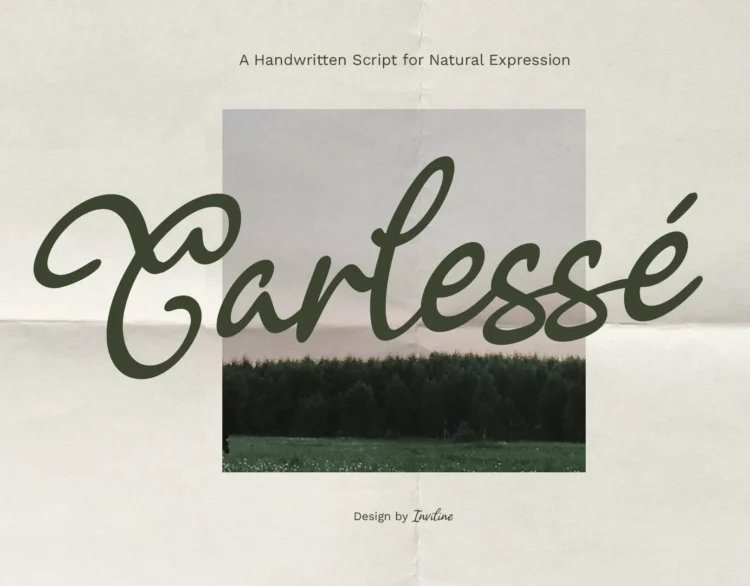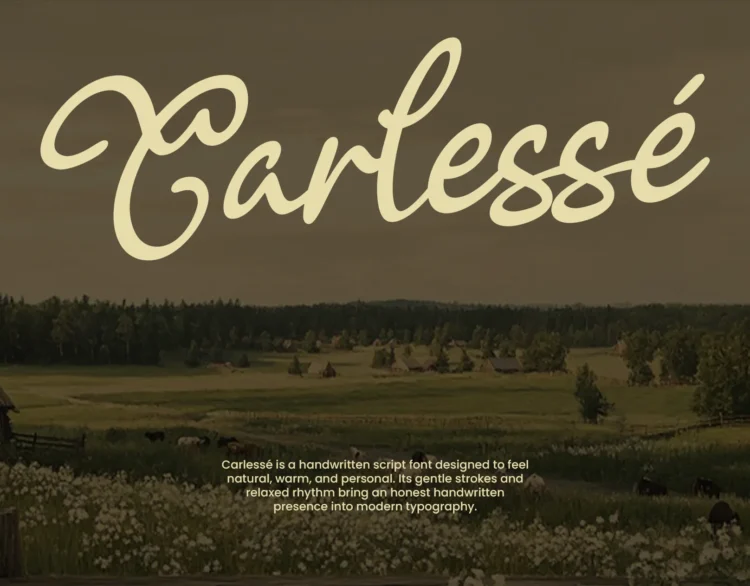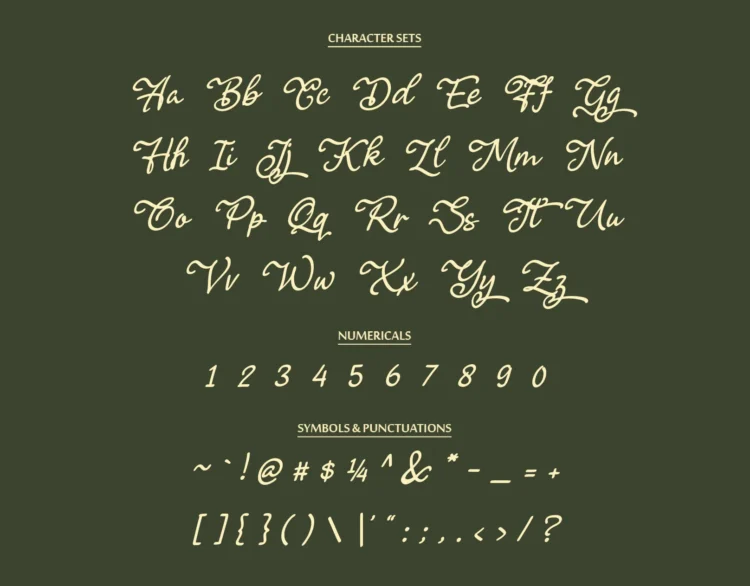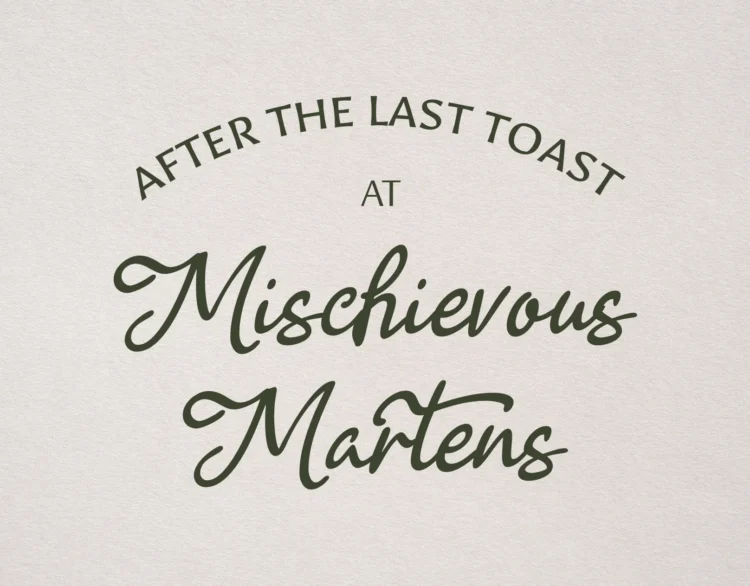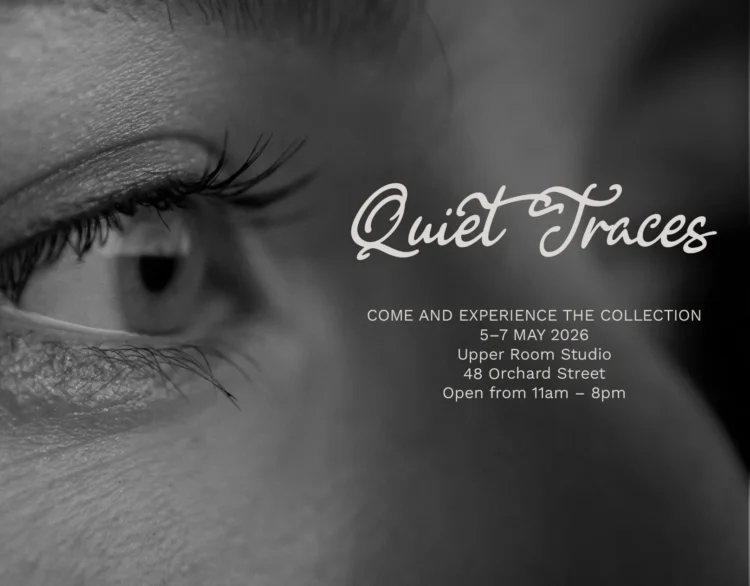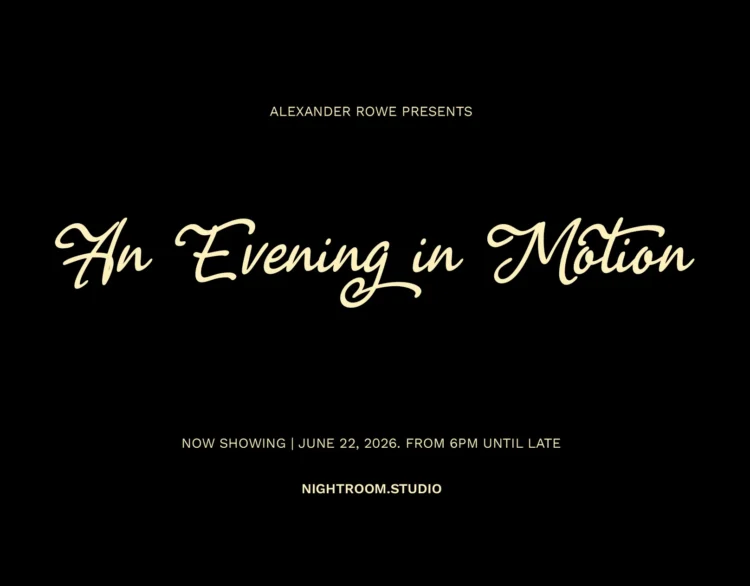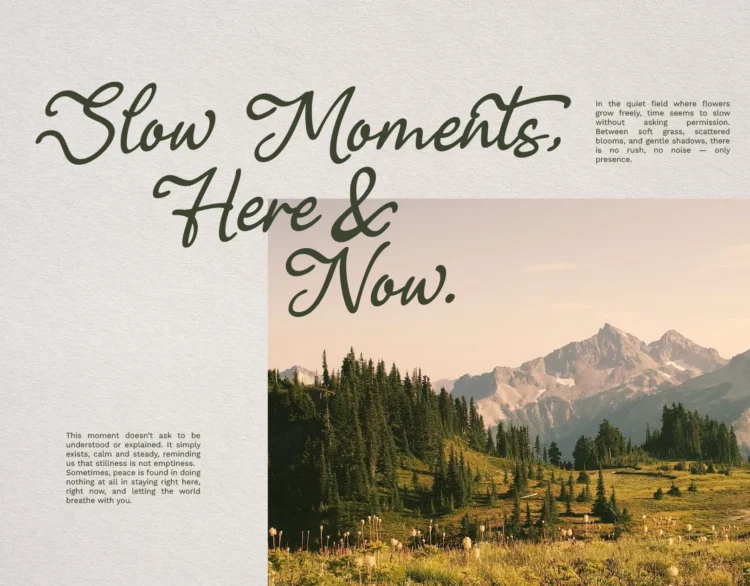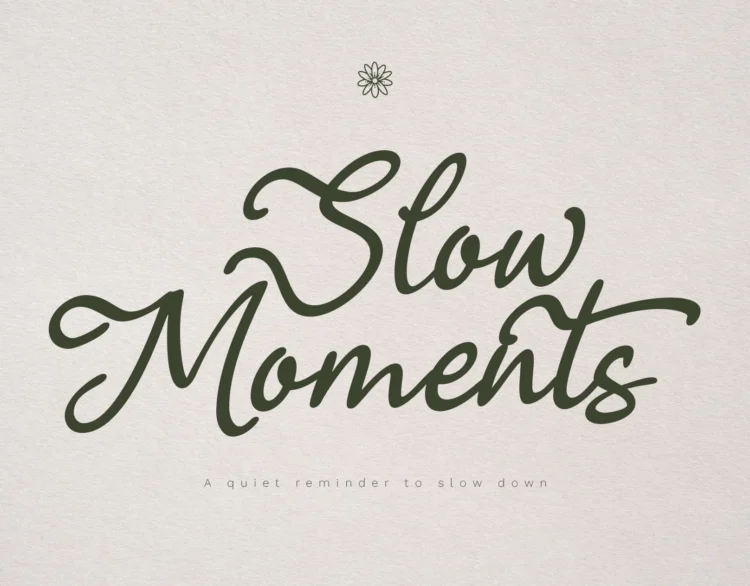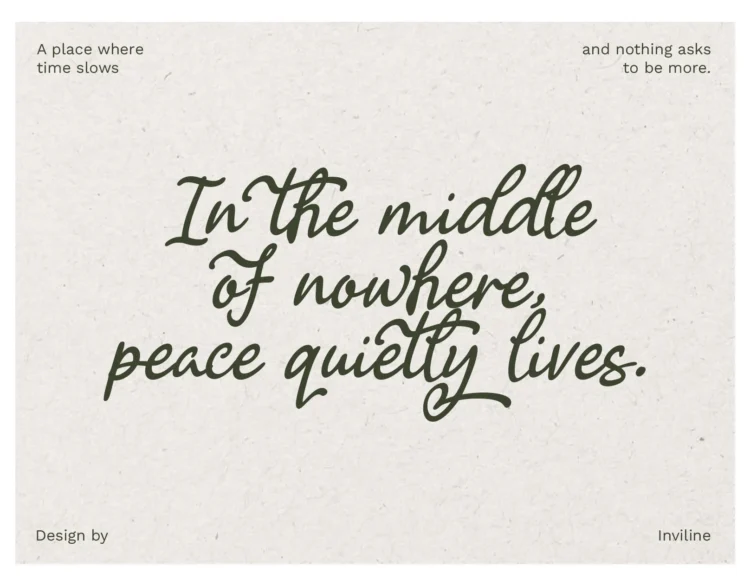
Carlessé is a naturally flowing handwritten script with casual charm and smooth rhythm. Inspired by the subtle grace of handwriting, this font blends elegance with informality, perfect for projects that need a personal yet polished touch. Its gentle curves and balanced strokes give Carlessé a friendly and approachable voice, ideal for storytelling, branding, or quiet design moments.
- Complete uppercase & lowercase letters
- Numbers, punctuation, and symbols
- Standard ligatures & stylistic alternates
- Multilingual support (Western & Central European languages)
Perfect For :
- Greeting cards
- Editorial design
- Instagram quotes
- Packaging & stationery
- Logo & branding
- Poetry books or journaling